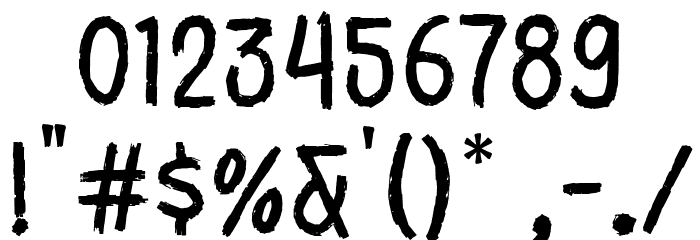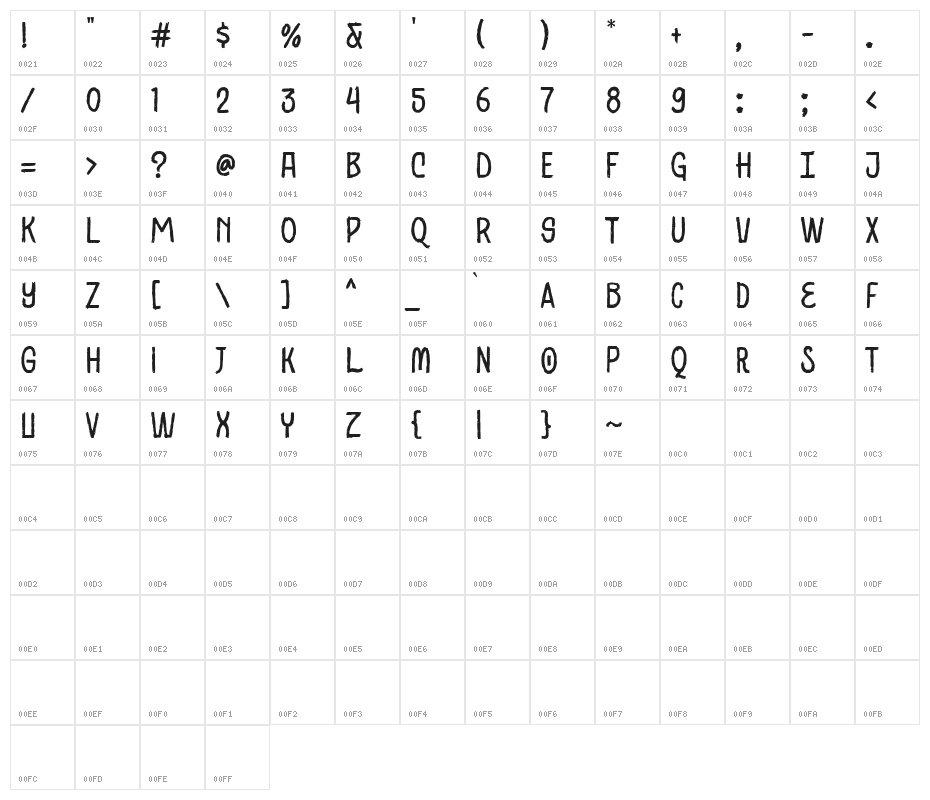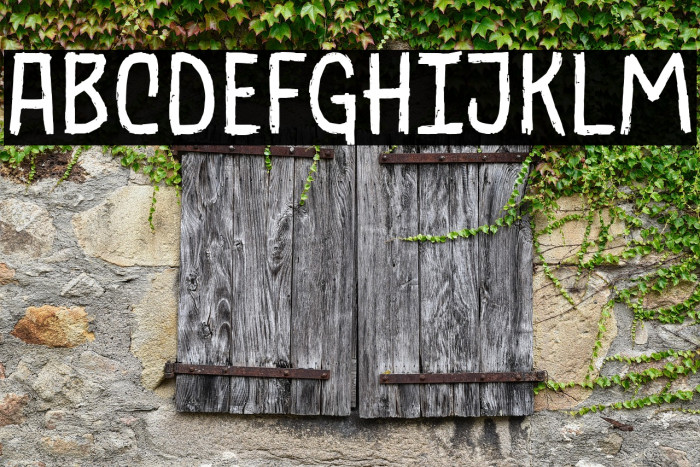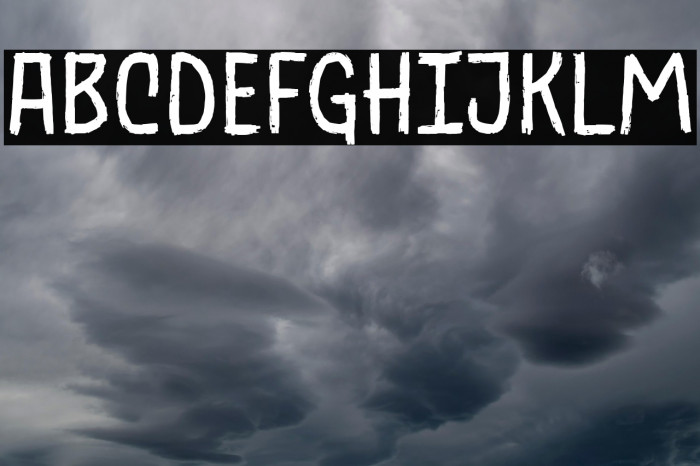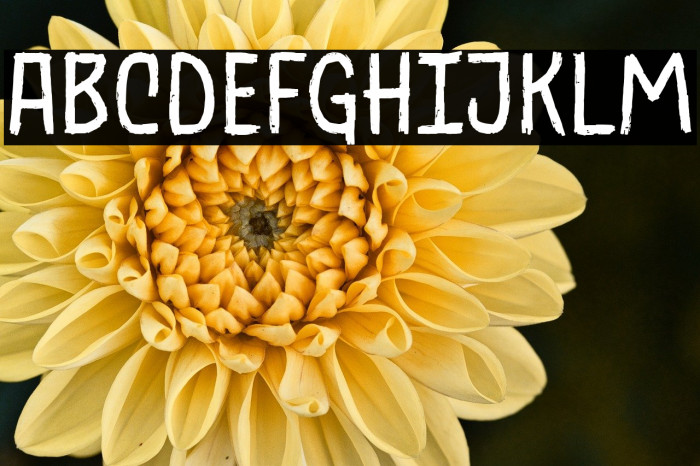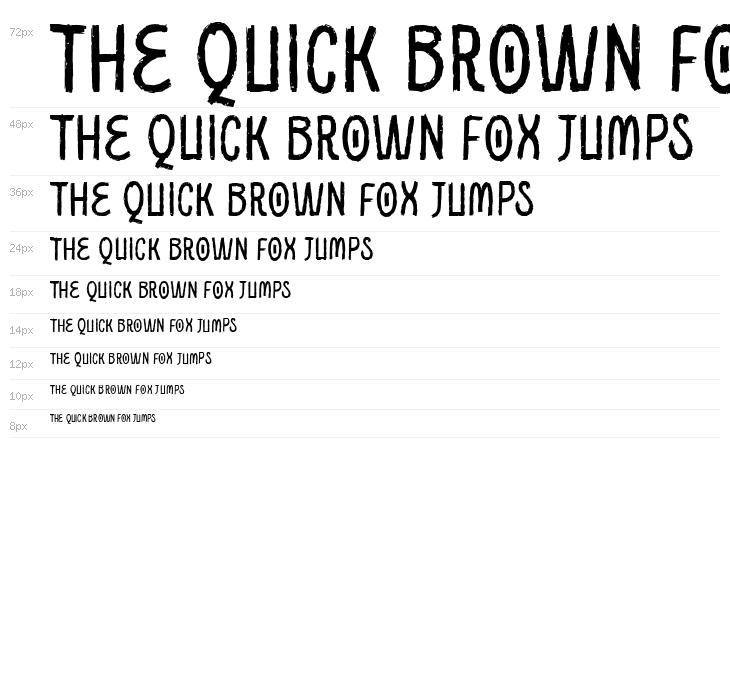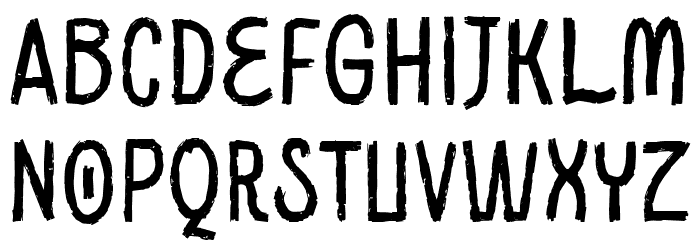
BlackGrounds-Regular Font
BlackGrounds-Regular Description
This font features a bold, hand-drawn style with a rough, textured appearance. The characters are slightly irregular, giving it a casual and organic feel. The uppercase letters are distinct and bold, while the lowercase letters maintain a consistent style. Numbers and special characters are designed to match the overall aesthetic, making it versatile for various uses. The font's unique, artistic quality makes it stand out, suitable for creative projects that require a personal touch.
| Proposed Projects | Ideal for posters, album covers, branding, and any project needing a handmade, artistic touch. |